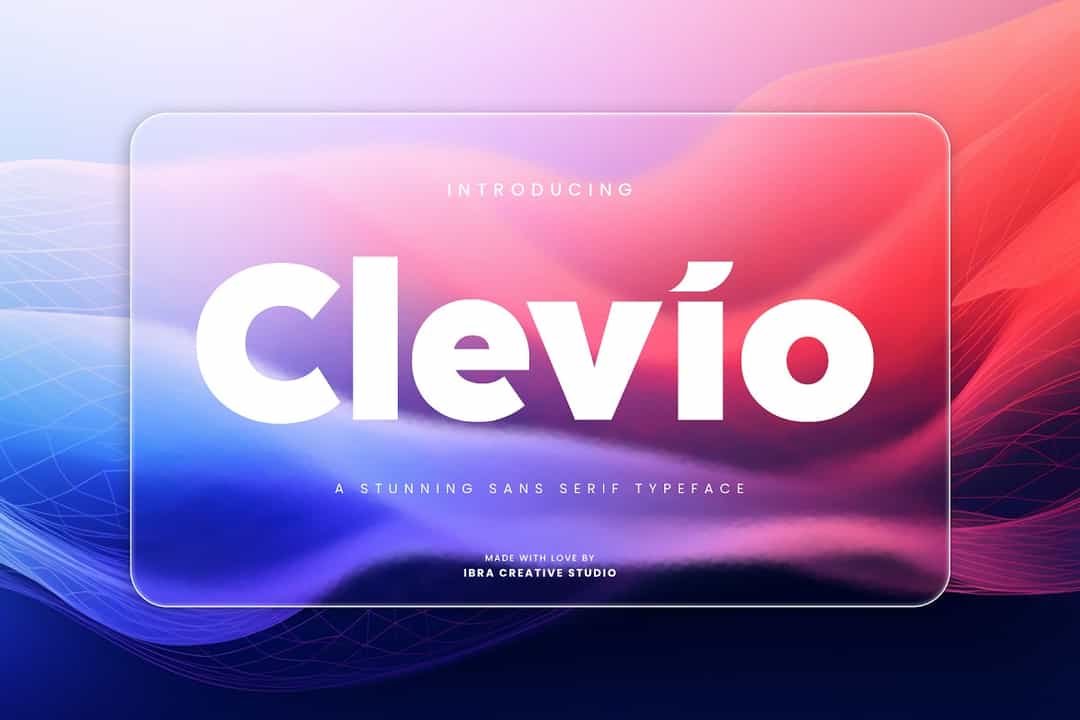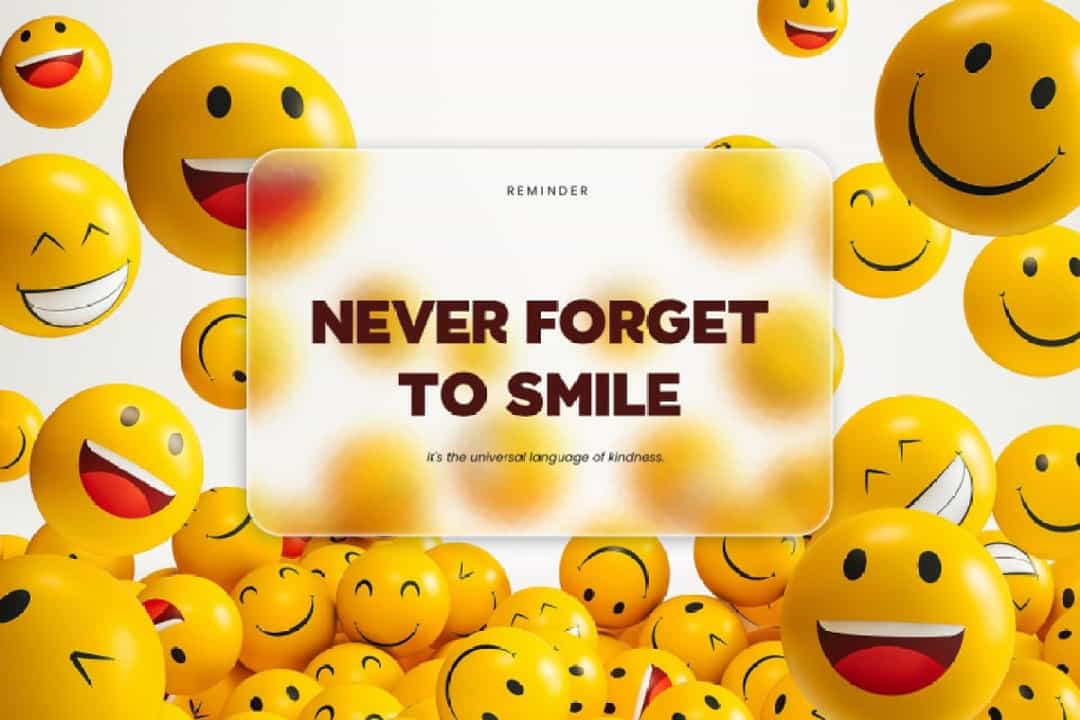
Clevio is an attractive serif-free typeface that seamlessly combines contemporary style with timeless elegance. Its letterforms exude an elegant simplicity, with clean and unadorned lines reflecting modernity while remaining versatile enough for multiple design purposes.